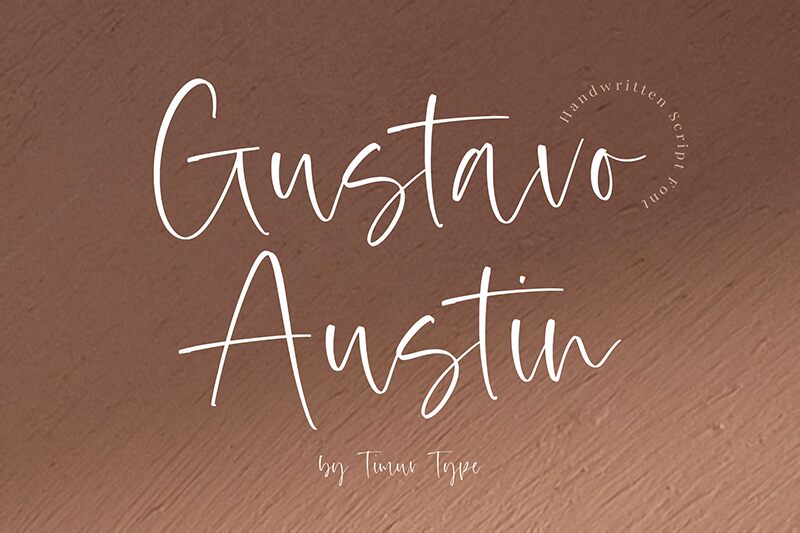
Gustavo Austin
Gustavo Austin, a creation by Timur Type, exudes a personal touch with its handwritten style, reminiscent of elegant cursive script found in intimate correspondence. Its gentle strokes suggest a light and airy quality, evoking the flair of an artist's hand effortlessly gliding across paper. The graceful elongation of certain characters lends the font an expansive feel, adding to its bespoke charm.
Ideal for projects that require an organic and individualistic presence, Gustavo Austin's aesthetic lends itself beautifully to invitations, branding elements, and editorial design where personality and distinctiveness are paramount. Its subtle sophistication ensures that it stands out in applications seeking to convey authenticity with a stylish twist.